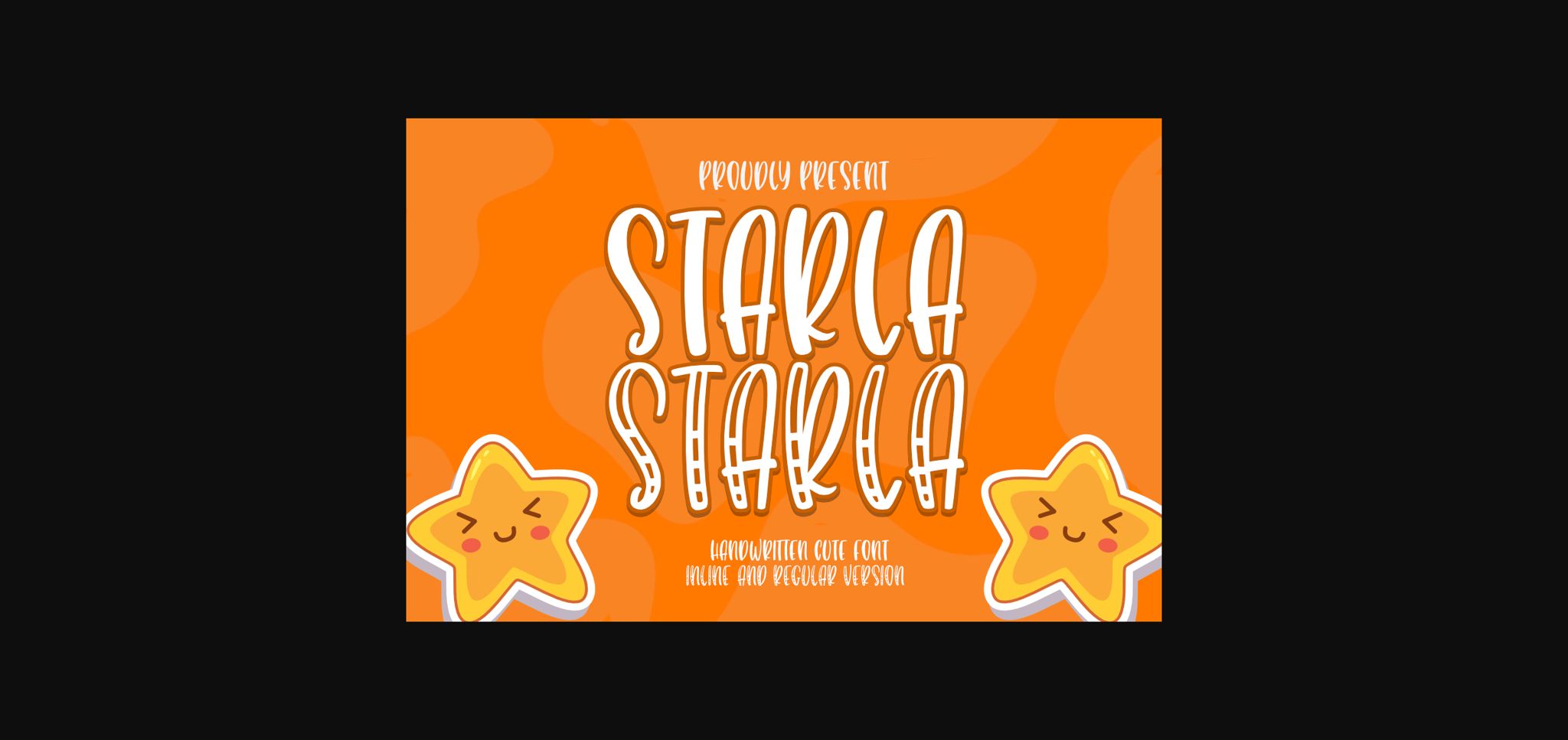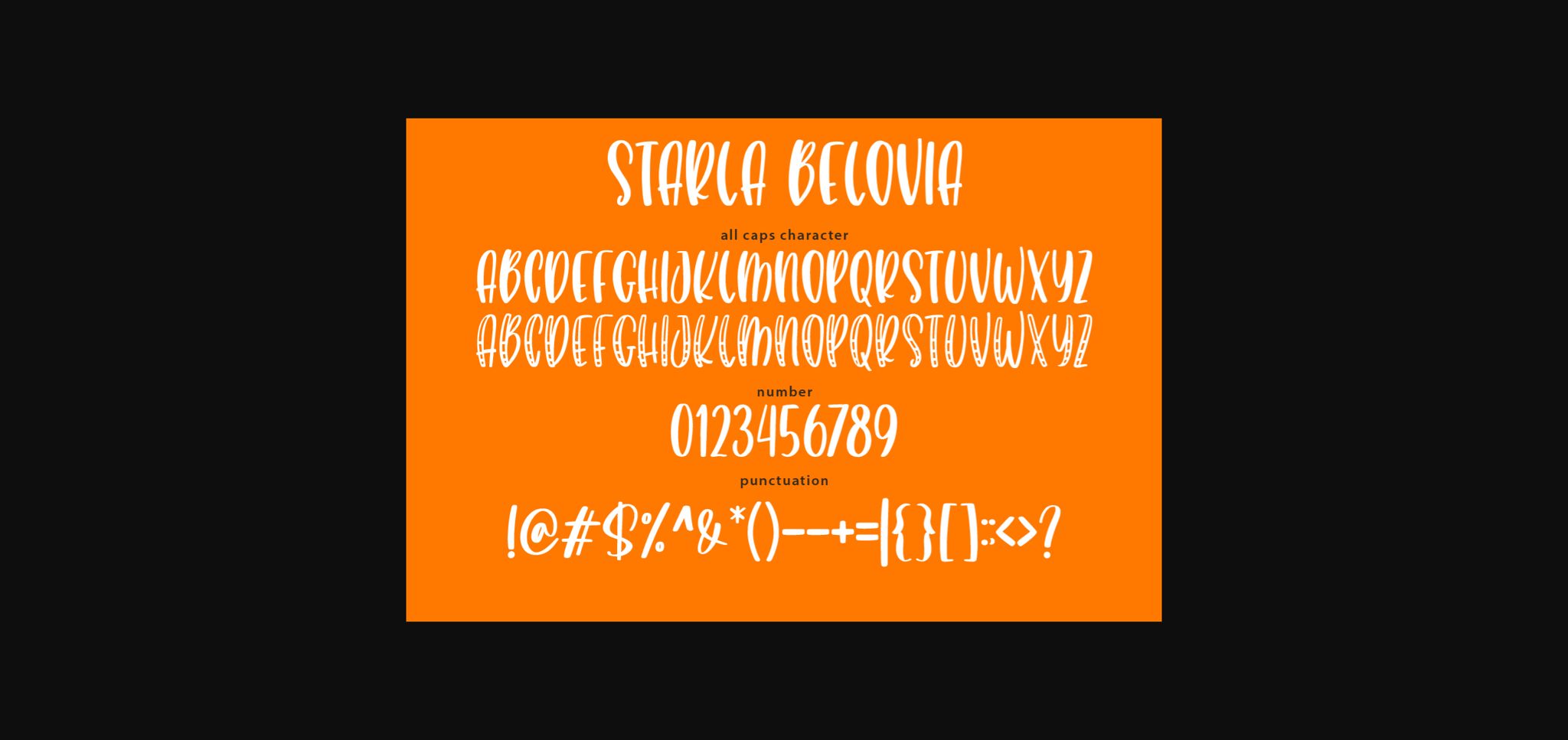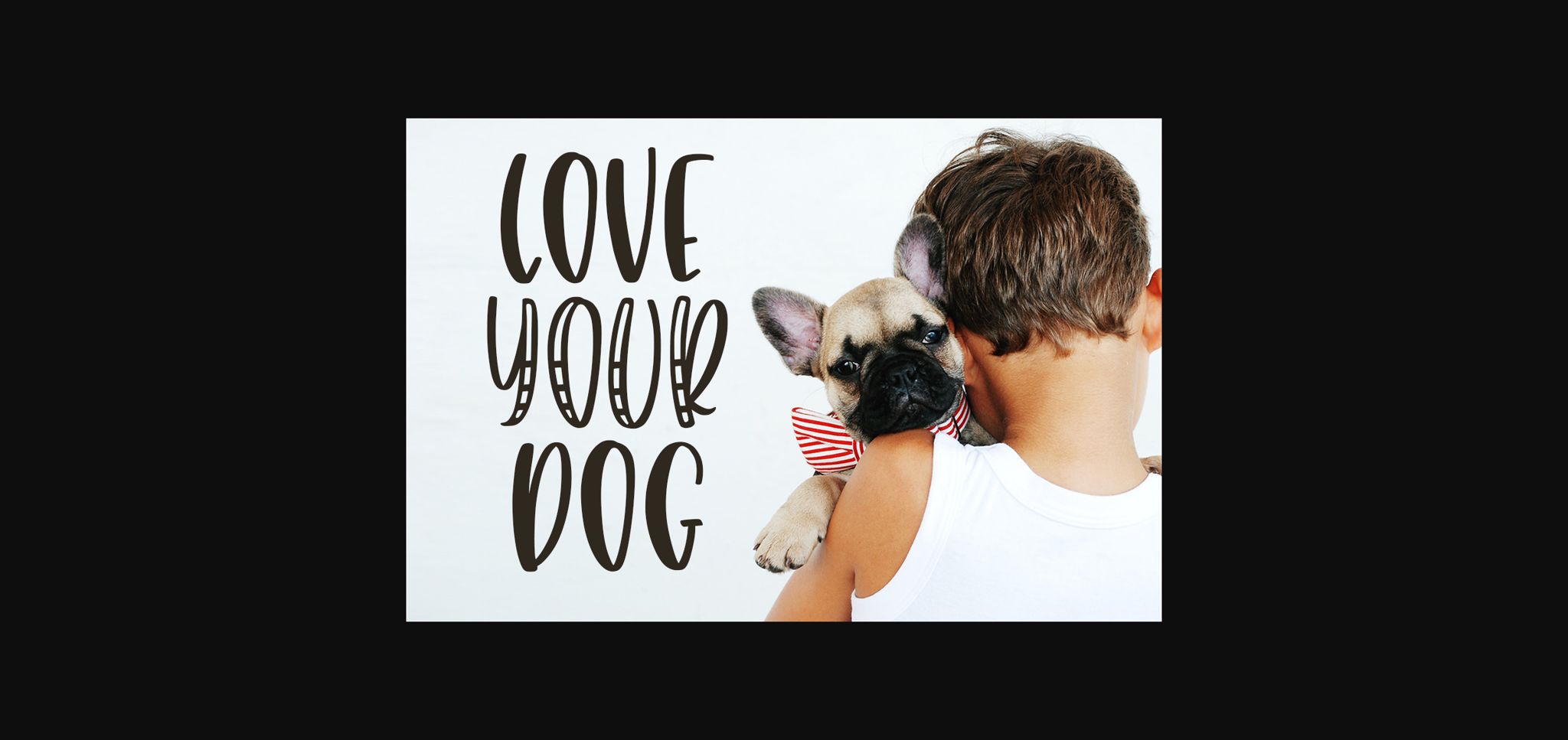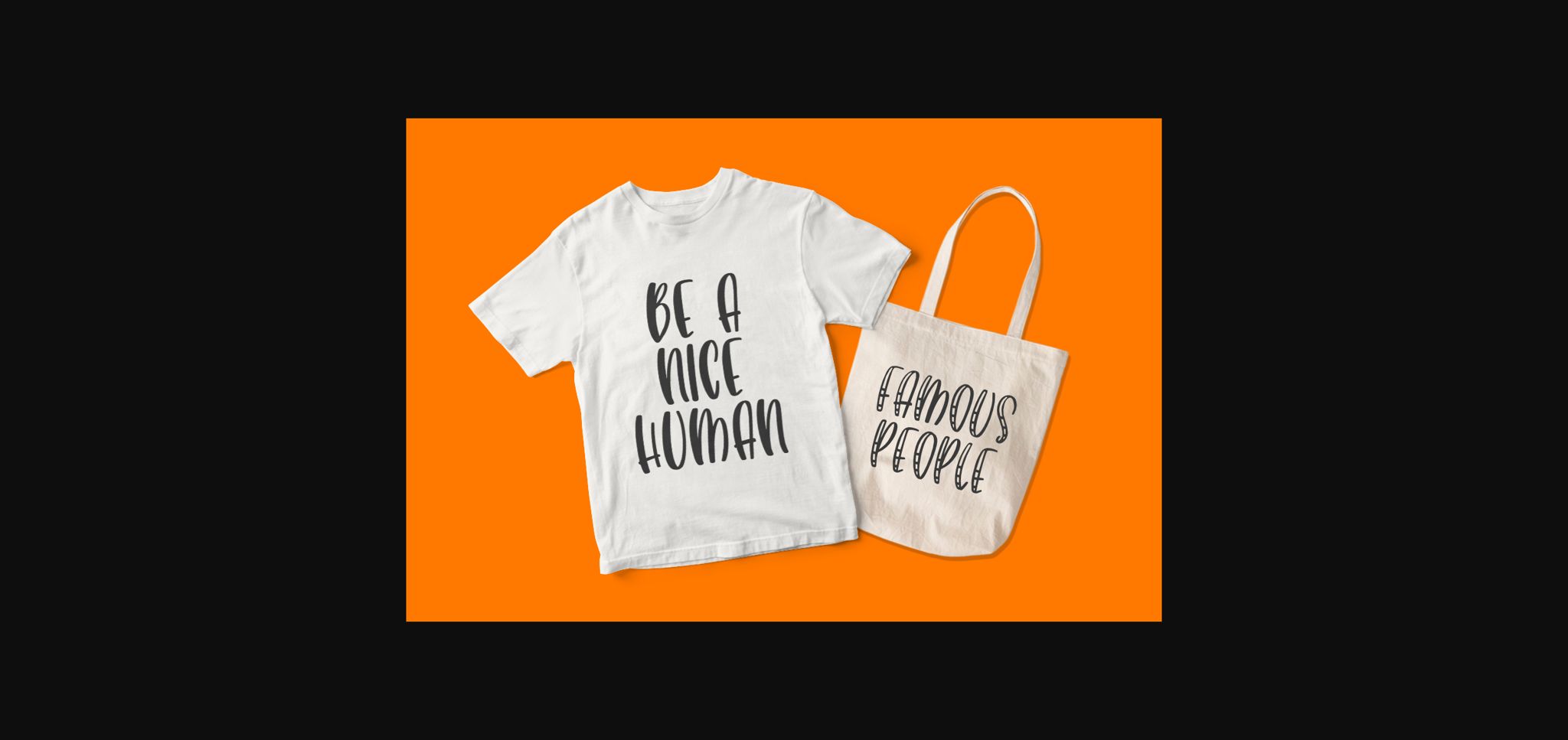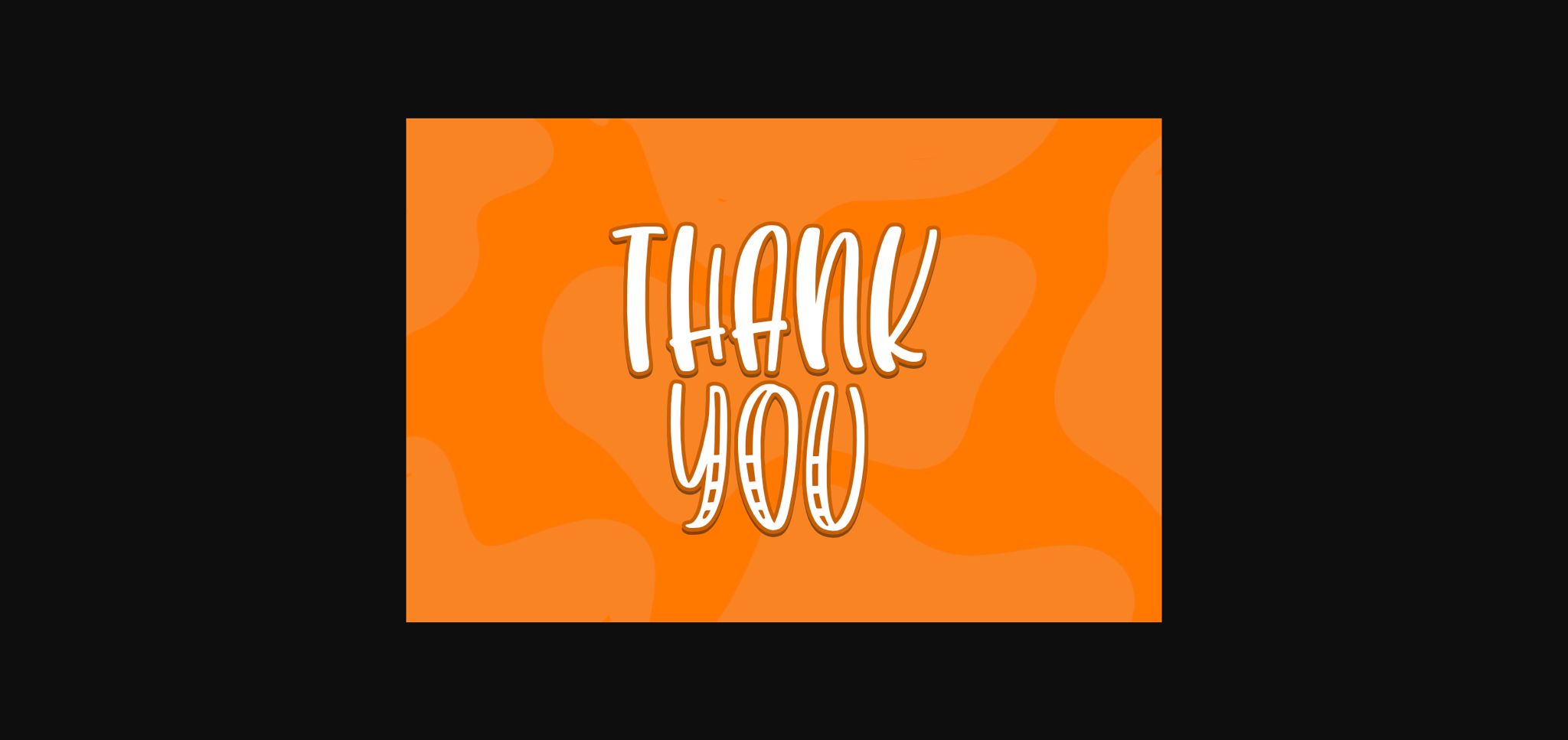
Starla Belovia Font
Starla Belovia is a fun and beautiful handwritten font. Fall in love with its authentic feel and use it to create gorgeous wedding invitations, beautiful stationary art, quotes, t-shirt designs, branding, children’s designs, logos, social media posts, and more!